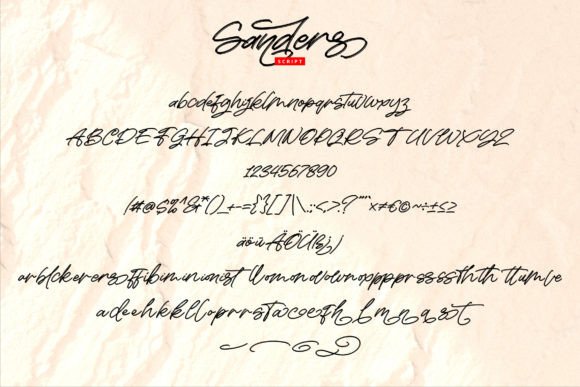
Sanders Font
About Sanders Font
Introducing Sanders, an exquisite handwritten font masterfully designed to become a true favorite. Fall in love with its incredibly distinct and timeless style, and use it to create spectacular designs that leave a lasting impression.
The distinct and timeless style of Sanders makes it a versatile choice for a variety of design applications. Whether you’re working on branding materials, invitations, posters, or any creative project, Sanders is crafted to bring a touch of elegance and uniqueness to your designs.
Consider using Sanders to create stunning and memorable branding materials, add a sophisticated flair to your invitations, or design eye-catching posters with a font that stands out. The versatility of Sanders ensures that it can adapt seamlessly to different design contexts, providing a consistent and elegant look.
In essence, Sanders is more than just a font; it’s a design tool that brings a distinct and timeless quality to your projects. Let it be the handwritten font that becomes a true favorite, allowing you to create spectacular designs that reflect elegance and uniqueness.